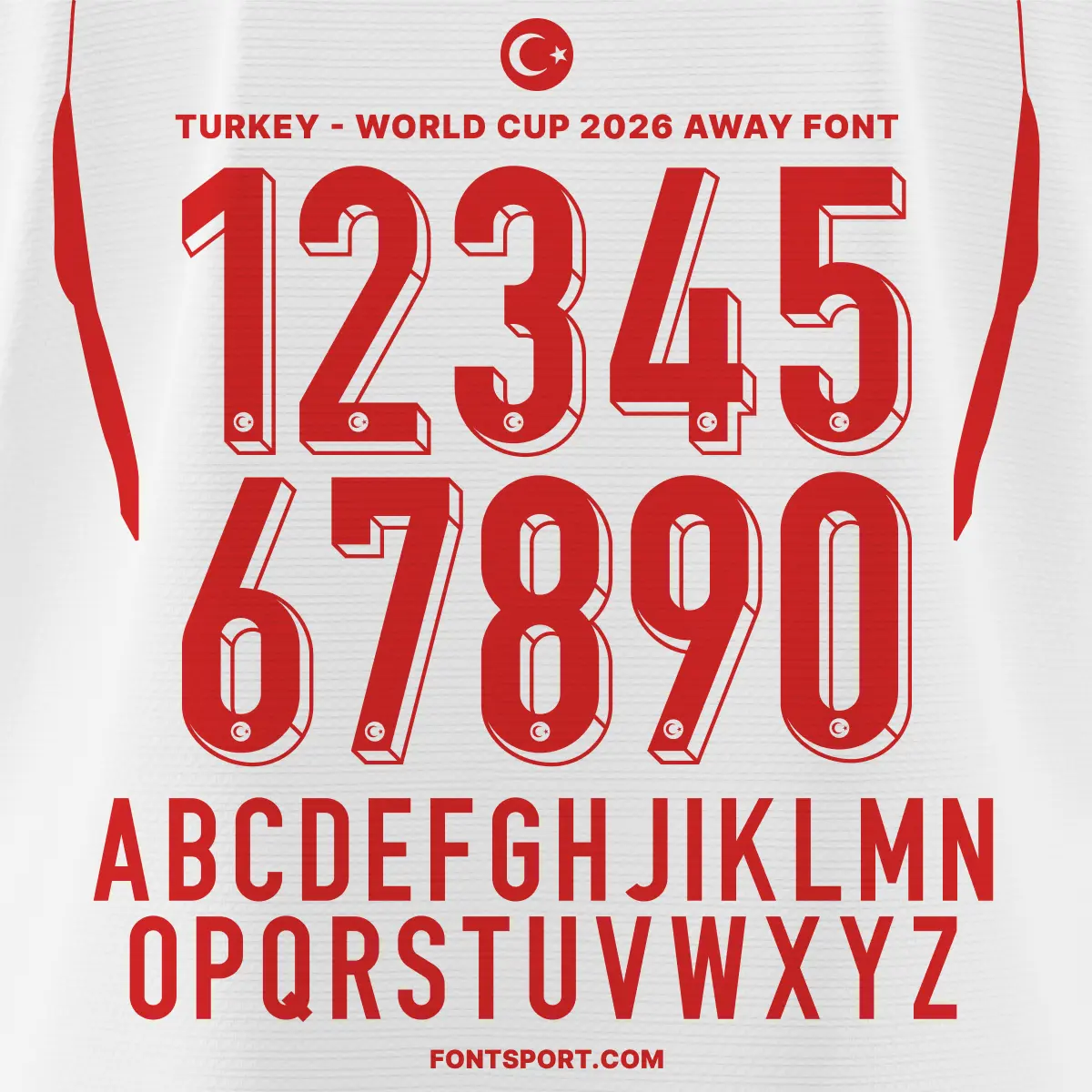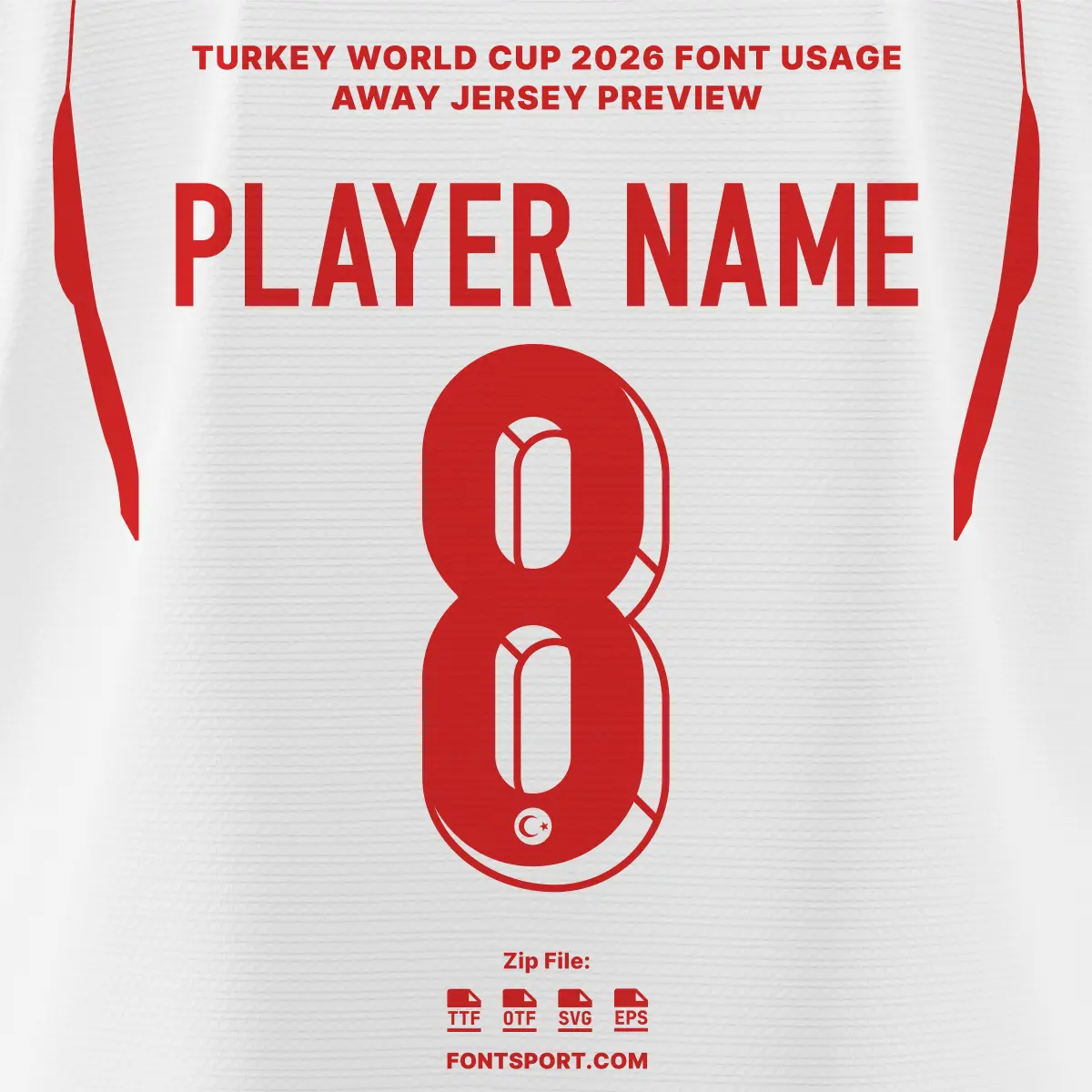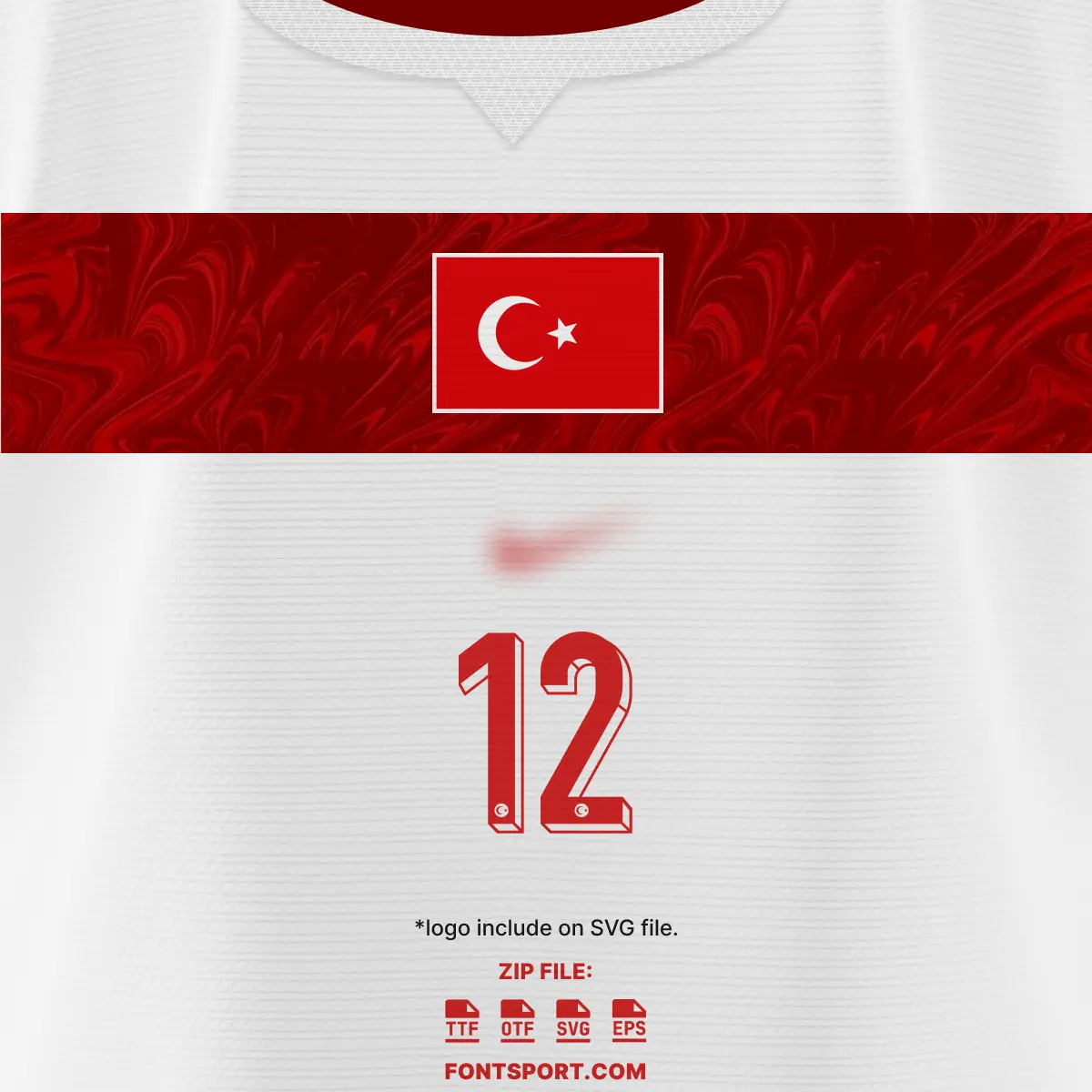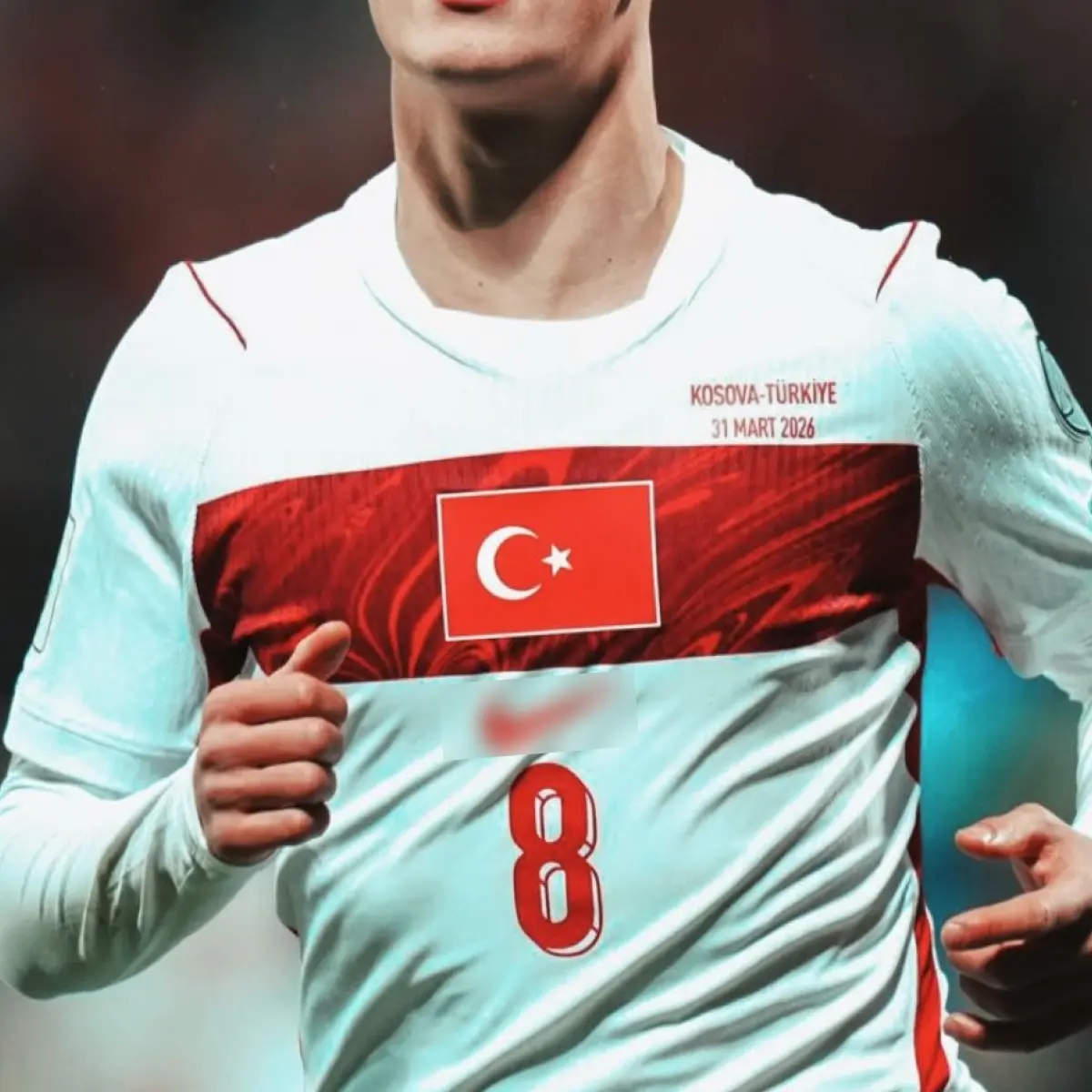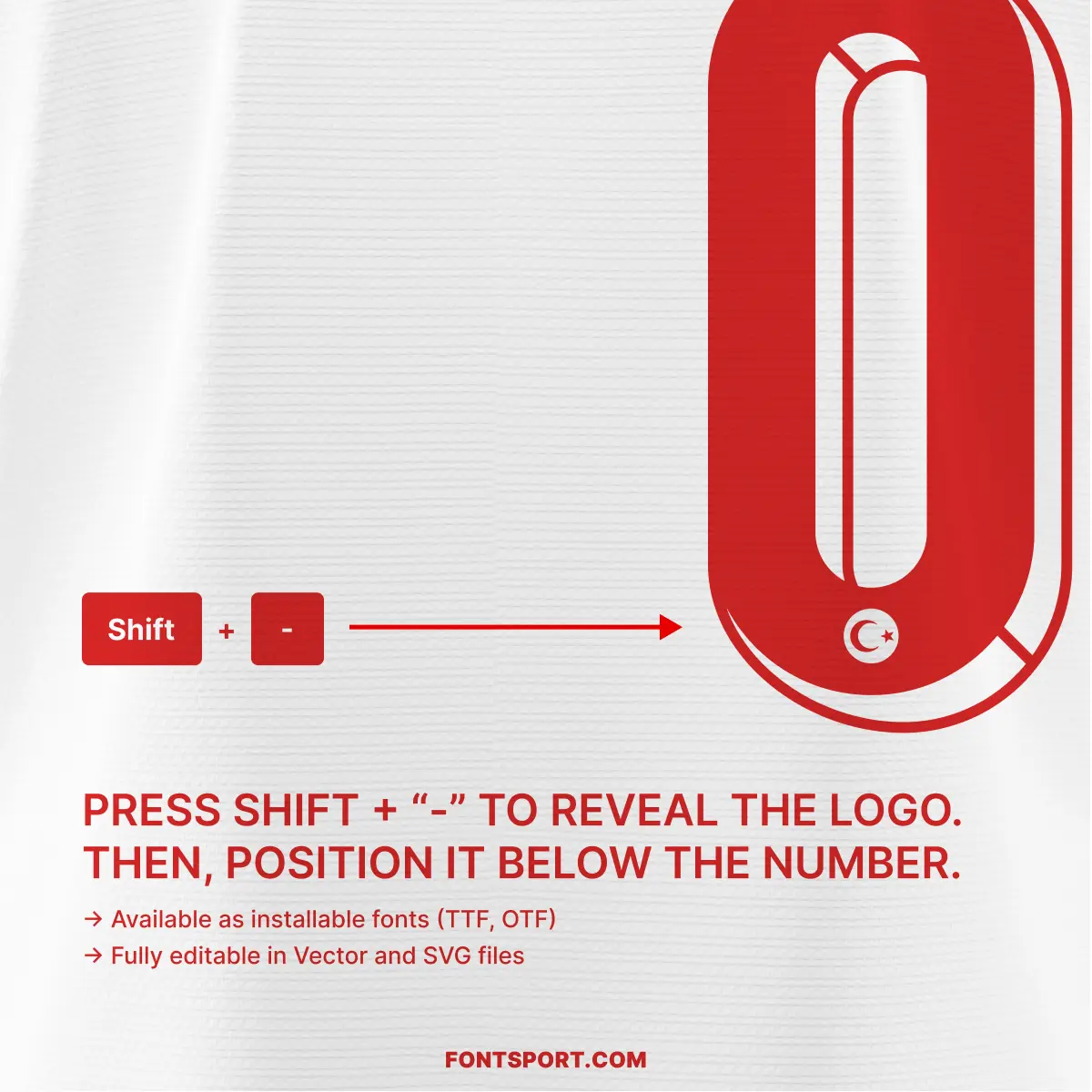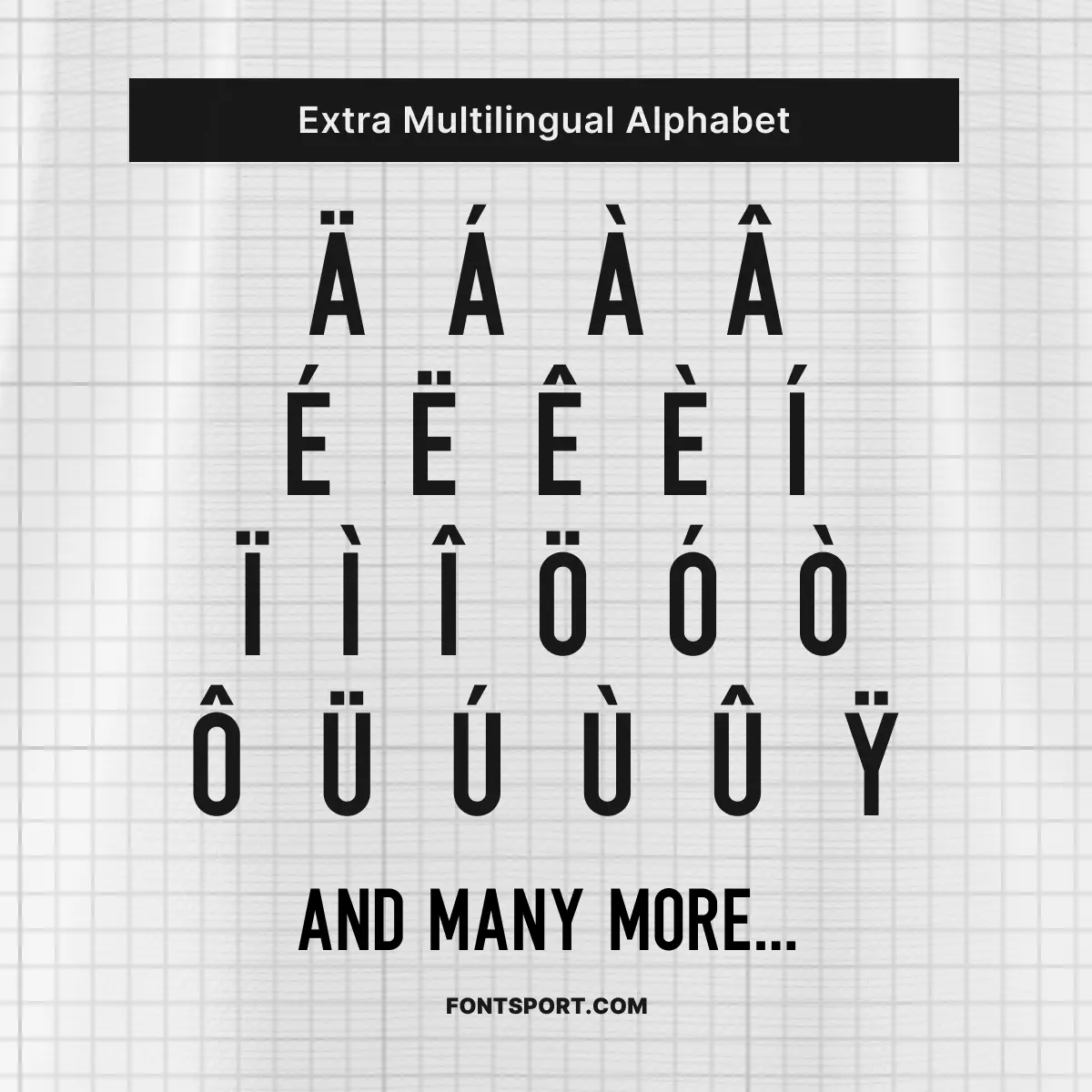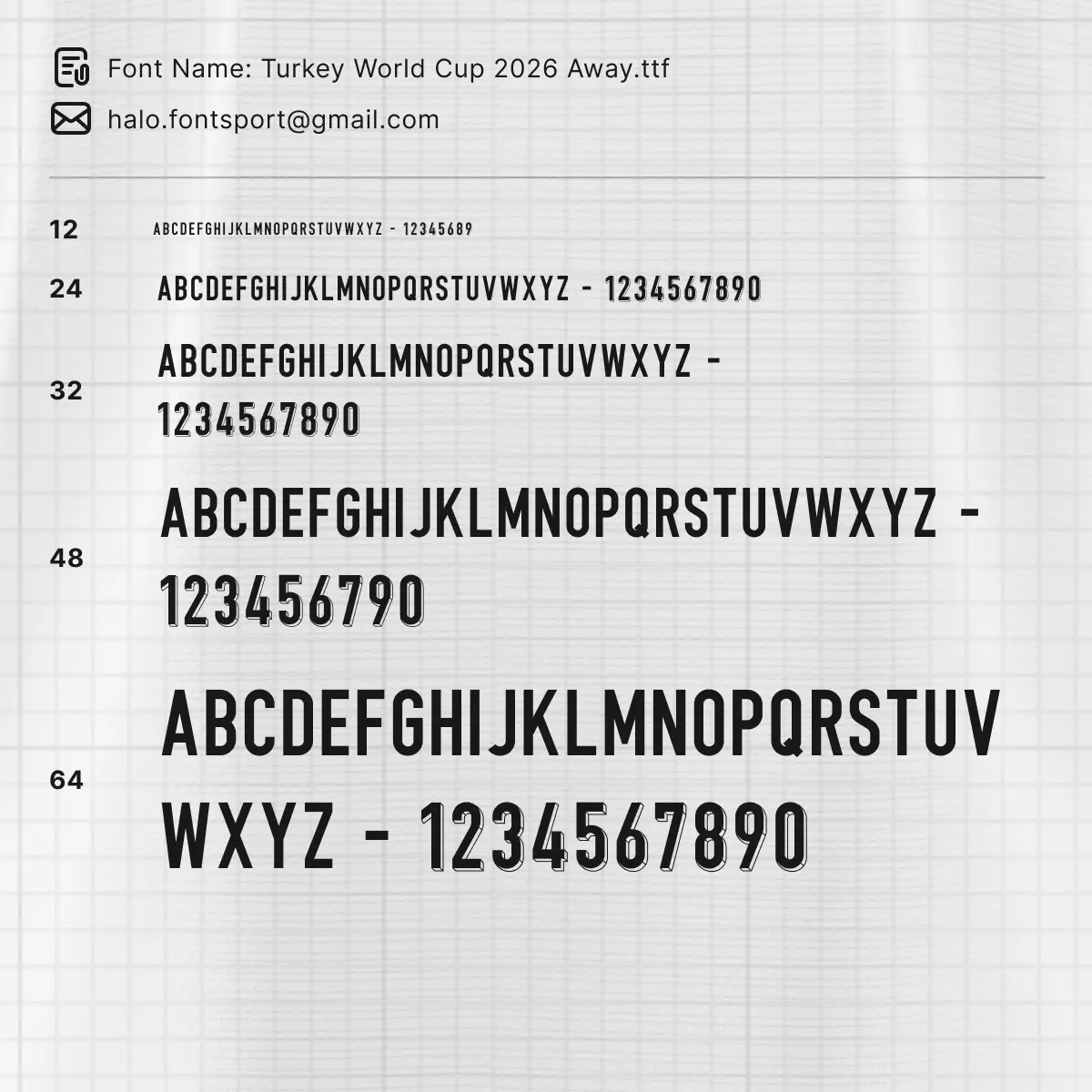
Turkey World Cup 2026 Away Font Kit – Football Typeface
The Turkey World Cup 2026 Away Font Kit captures the high-energy “Crescent-Star” spirit as Türkiye makes its triumphant return to the global stage for the first time in 24 years. This font mirrors the clean, modern aesthetic of the 2026 away collection, featuring a sharp, condensed structure designed for maximum impact and visibility on the world stage. Whether you are crafting professional sports apparel or digital fan content, this kit helps your vision stand out with authentic Turkish flair.
Complete Character Set: Features bold, modern uppercase letters that will be worn by stars like Kerem Aktürkoğlu and Kenan Yıldız.
Full 0–9 Number Set: Optimized for high-intensity visibility, mirroring the centralized numbers worn during Türkiye’s dramatic qualifying campaign.
Extra Multilingual Alphabet: Full support for accented characters (Ş, Ğ, İ, ı, Ö, Ü), essential for accurately representing the Turkish national roster.
Integrated National Identity: Add an authentic finish to your designs by revealing the official-style crescent-and-star logo typography through a simple keyboard shortcut.
This bundle is ideal for creating personalized football kits, striking match-day graphics, or unique merchandise that celebrates the return of the Ay-Yıldızlılar (Crescent-Stars) to the World Cup.
This font kit is built for designers who want to bridge the gap between national pride and elite athletic performance:
Aero-FIT Ready: Reflects the sharp, technical aesthetic of Nike’s latest 2026 World Cup templates, designed to complement engineered knit textures.
Clean Vertical Build: The condensed vertical proportions help player names stay clear across both close-up previews and full-shirt layouts.
Optimized for Apparel: An ideal font for jersey printing, sports branding, and team uniforms that require a “clean and structured” appearance.
Versatile Design Asset: Use it as a football font for digital match-day banners or a sport font for physical print-on-demand products.